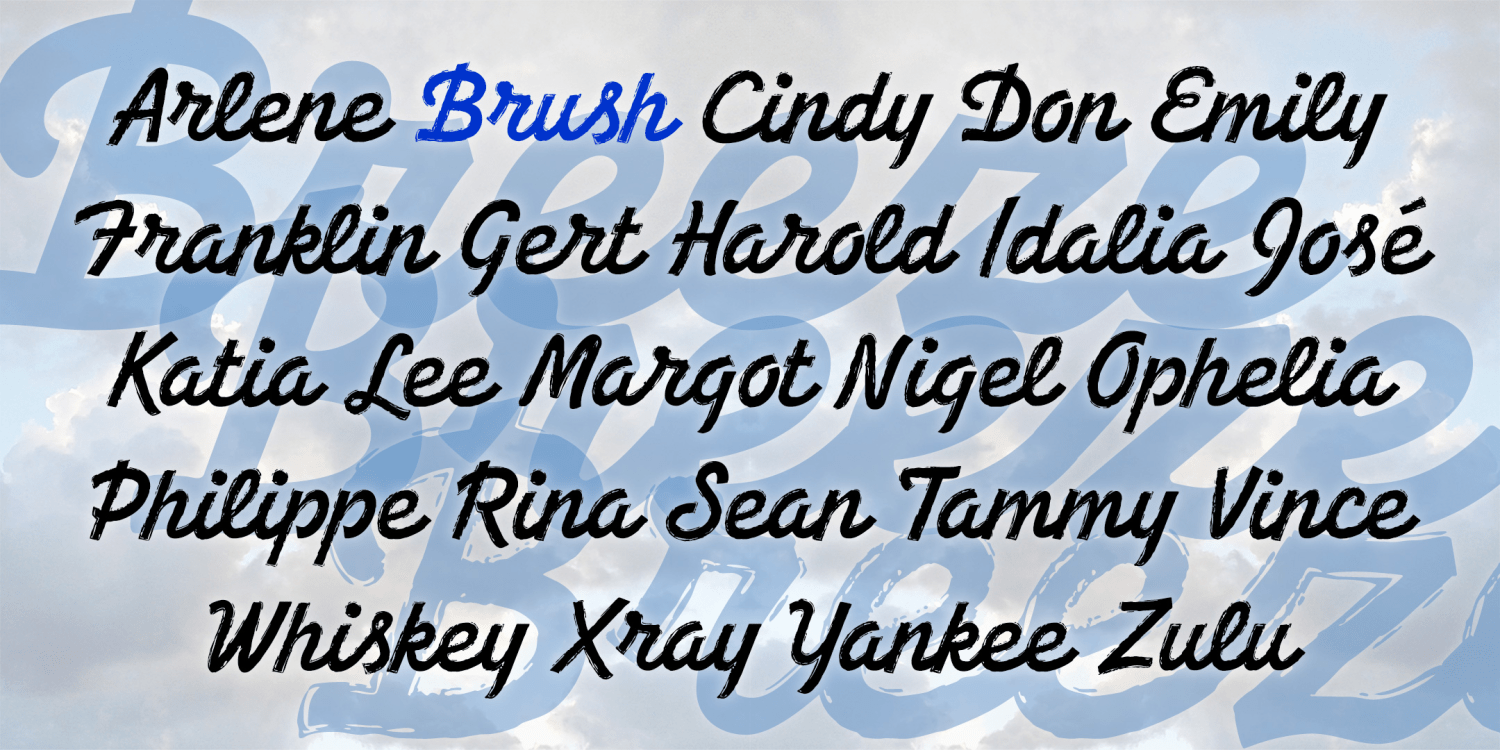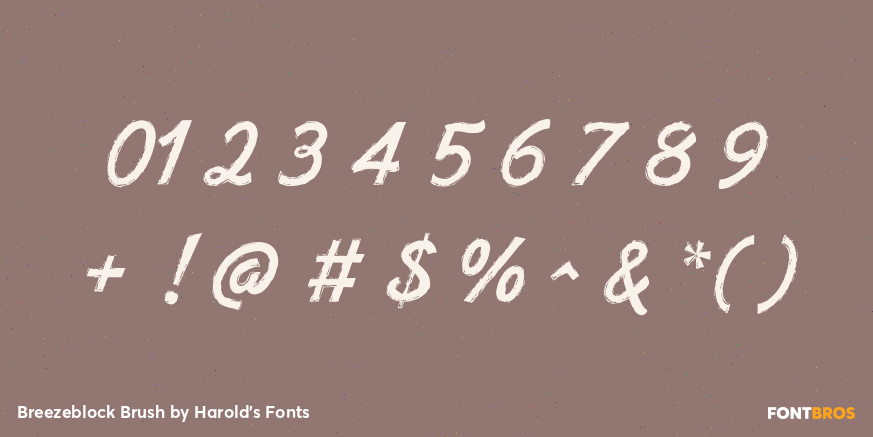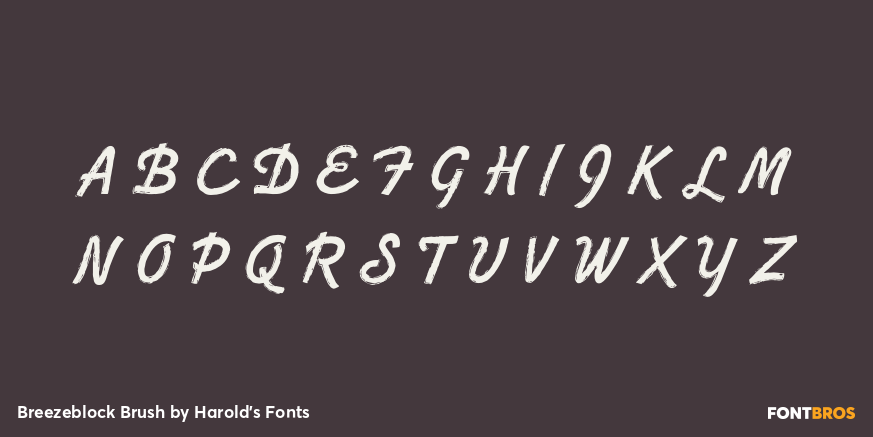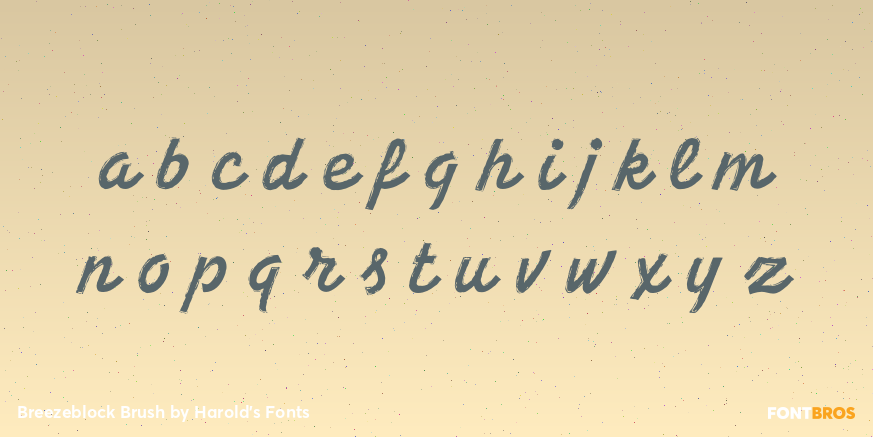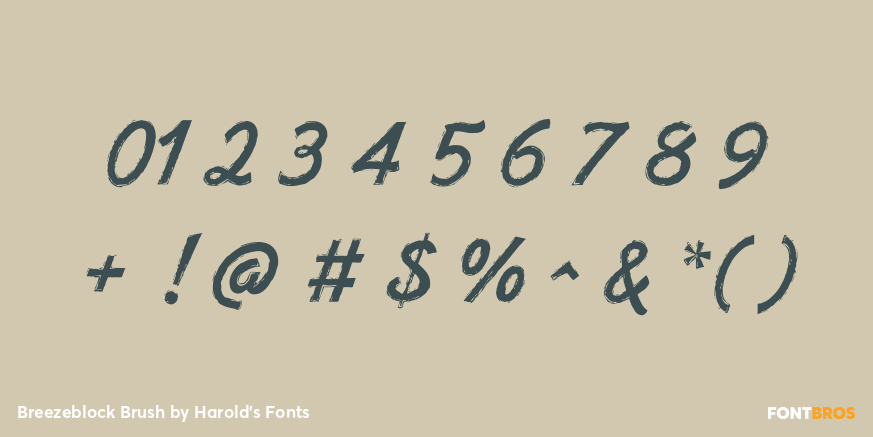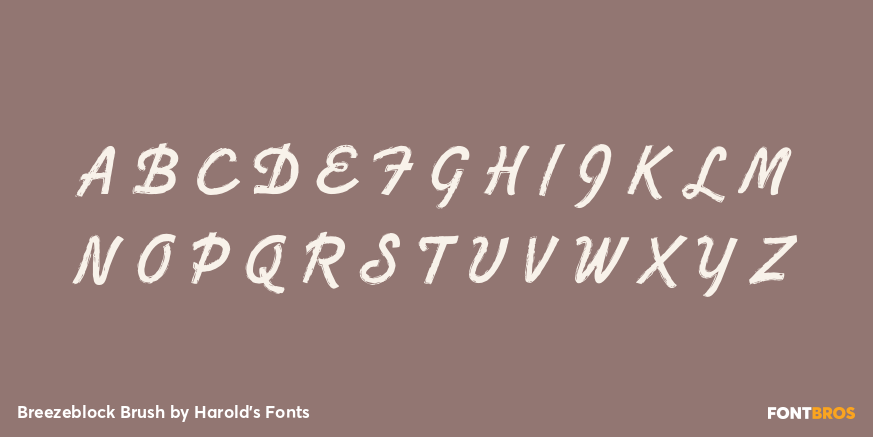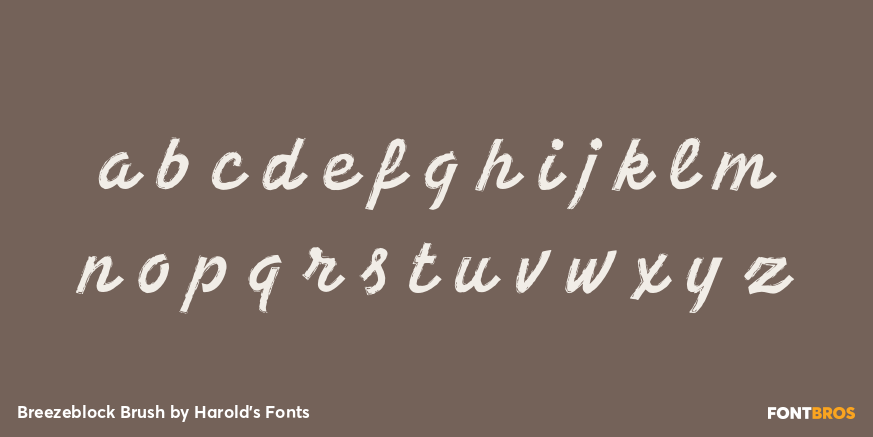
Breezeblock Brush
Font Style by Harold's Fonts
BREEZEBLOCK is a set of three bold cursive fonts with the feel of vintage hand-painted sign lettering. The Regular font has sharp corners; the Rounded and Brush varieties offer softer corners and edges. BREEZEBLOCK was inspired by film trailer lettering of the 1930s.